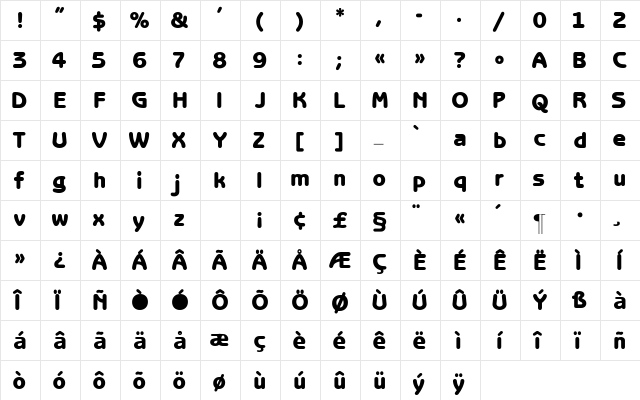
Benguiat_Gothic-Black Regular
Design Context for Benguiat_Gothic-Black Typeface
Benguiat_Gothic-Black has the quiet confidence of well-executed sans-serif typography: versatile, unobtrusive, and dependable at any size.
Font Pairing: Works well alongside a characterful serif or display font that can carry the expressive load while Benguiat_Gothic-Black handles the functional copy.
Pro Tip: Use Benguiat_Gothic-Black for UI labels, navigation, and short-form body copy where clean legibility is the priority.